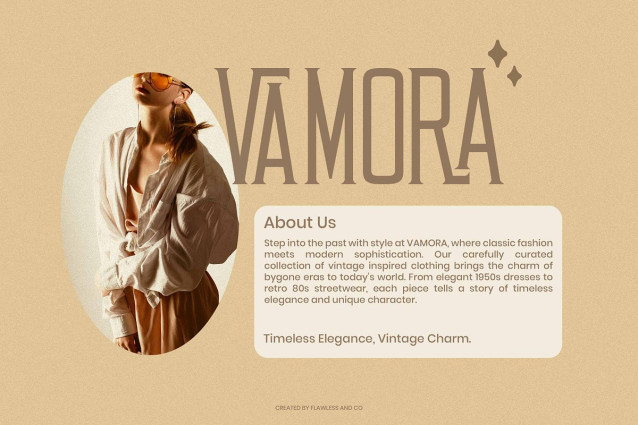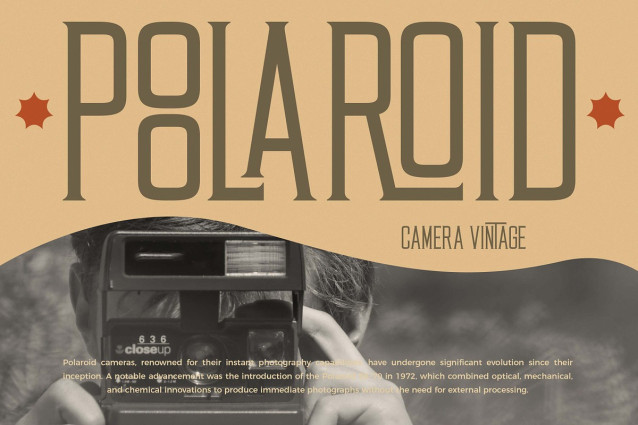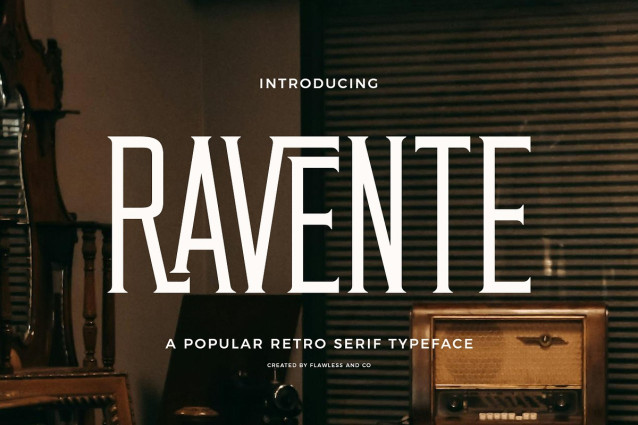
Ravente Font
Ravente Font is a retro serif font that combines vintage charm with a modern twist. Inspired by classic typography, it features bold serifs, smooth curves, and balanced letterforms that bring both elegance and character. Perfect for branding, logos, editorial designs, packaging, and more.